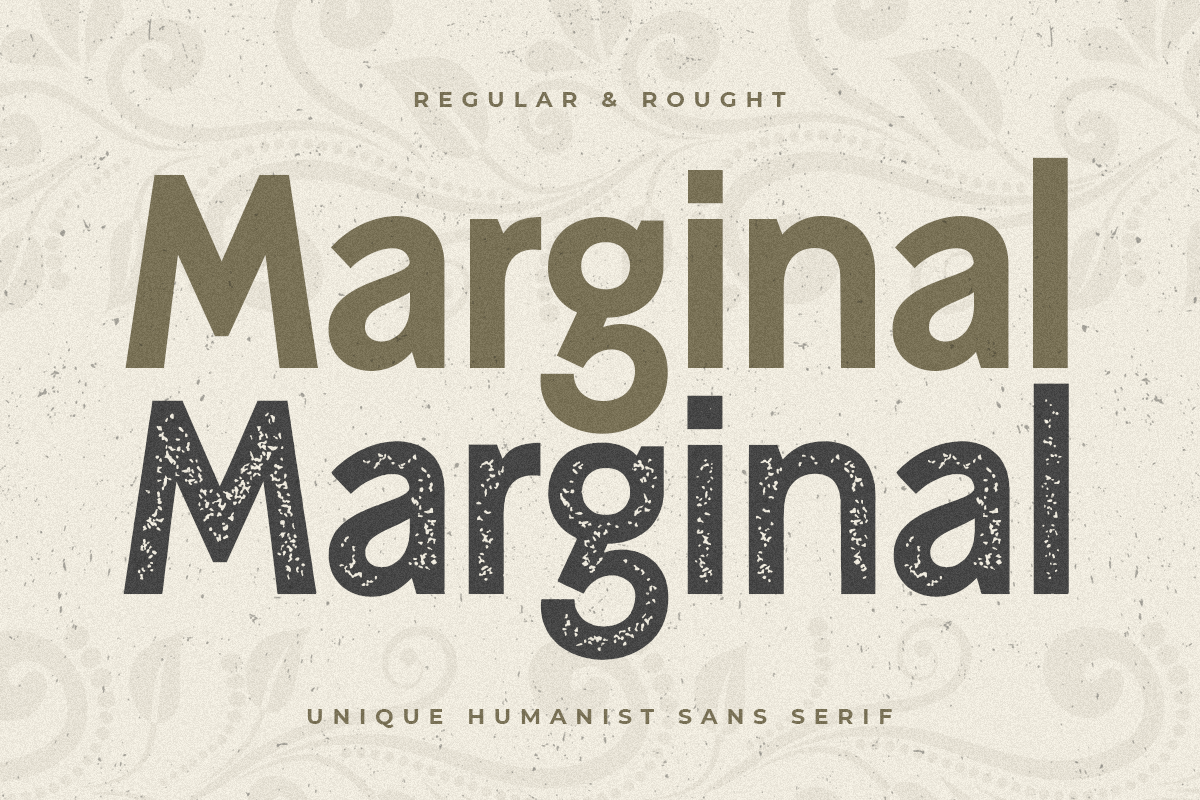
Marginal
-Unique Humanist Sans Serif
Marginal is a Humanist Vintage Sans Serif. A New Vintage font that we created special for Unique branding needs, with extra rough style that ready to add value of your brand. It's so nice to leverage designer or product owner that need solutions to make their design look more unique and vintage.